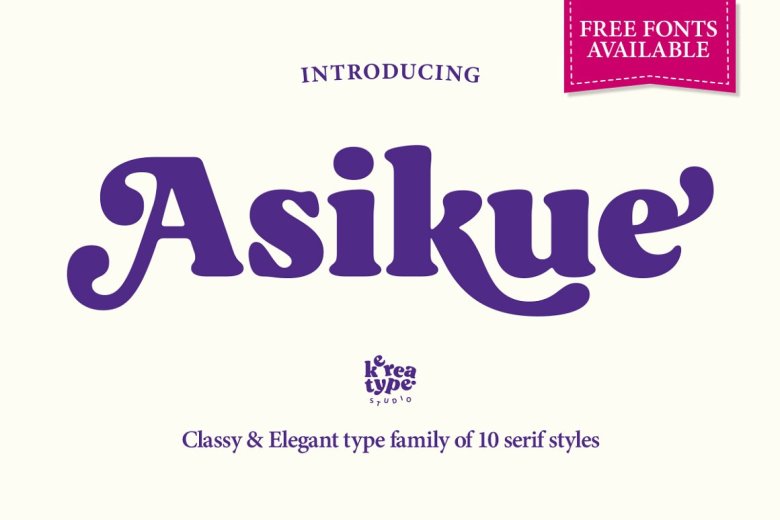
Asikue Font
Asikue is a Soft Serif Font Family that was influenced by the intuitive seventies retro designs which carried chunky retro music to the present period. Asikue comprises 10 variations from Regular to Extra Bold that have each interchangeable oblique variant. Asikue have OpenType feature: Alternate, Ligature, Swashes, etc, producing fantastic powerful unique text designs.
So if you are considering doing a decent retro-inspired fancy logo, or wanting to establish your eye-catching fat header text Asikue can perform what you require.
Asikue Soft Serif Font Family